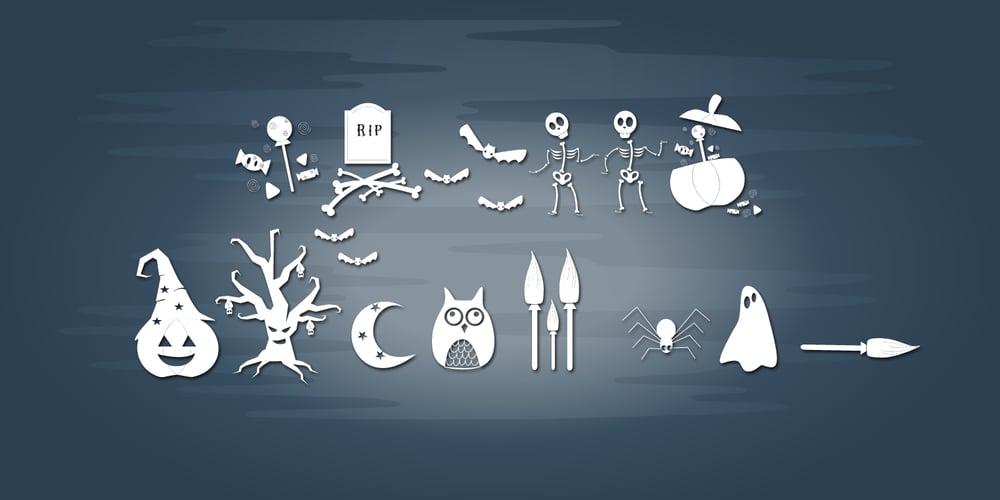
Graveyard Dingbats
Graveyard Dingbats font
Graveyard Dingbats Font Family was designed by Dimas Prasetyo and published by DM Studio. Graveyard Dingbats contains 1 styles and family package options. Bring the scariness with this Graveyard Dingbats Font! It consists of various “horror” theme icons, to make your designs more fun! Great for t-shirt design, cards, invitations, logo, signage, flyers, scrapbooks, stickers, book cover, kids stuffs, pillow or wallpaper designs!